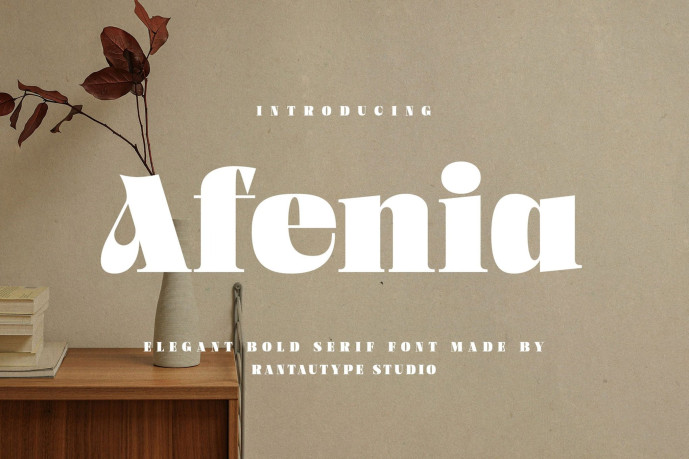
Afenia Font
Designer: Yudi Pratama Chandra
Afenia Font is Elegant bold serif font where strength meets sophistication, and clarity intertwines with timeless charm. Designed to command attention while maintaining a graceful presence, this font style blends bold strokes with refined serifs, creating a harmonious balance that feels both confident and elevated. Every letterform is crafted with intention: thick, expressive lines convey power and stability, while delicate serif details introduce an element of luxury and finesse. The result is a typeface that stands out effortlessly, yet never feels overwhelming.
Afenia is a perfectly choice for any creative endeavor, creating, modern, lifestyle design such as logotype, title, cover, branding, invitations, wedding designs, display and magazine, social media posts, advertisements, printed quotes, product packaging, corporate brand, product designs, labels, photography, watermarks, special events and any other project with elegant touch.